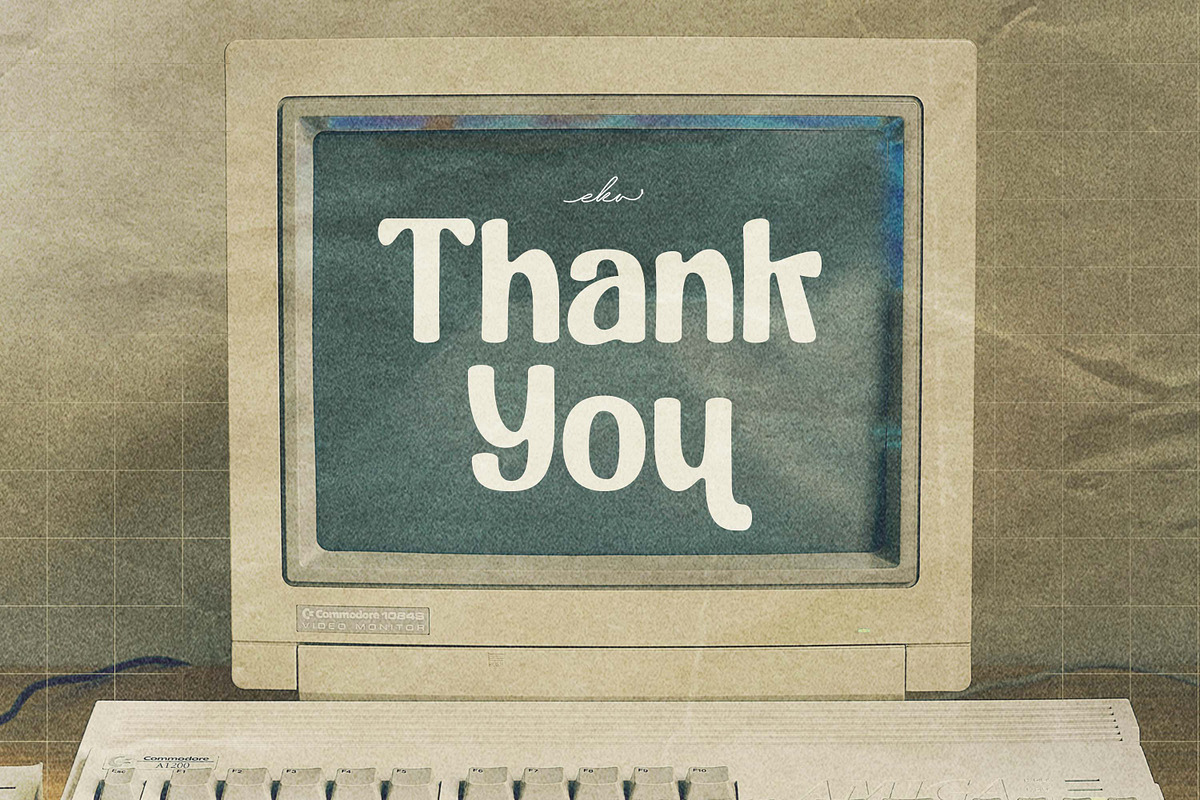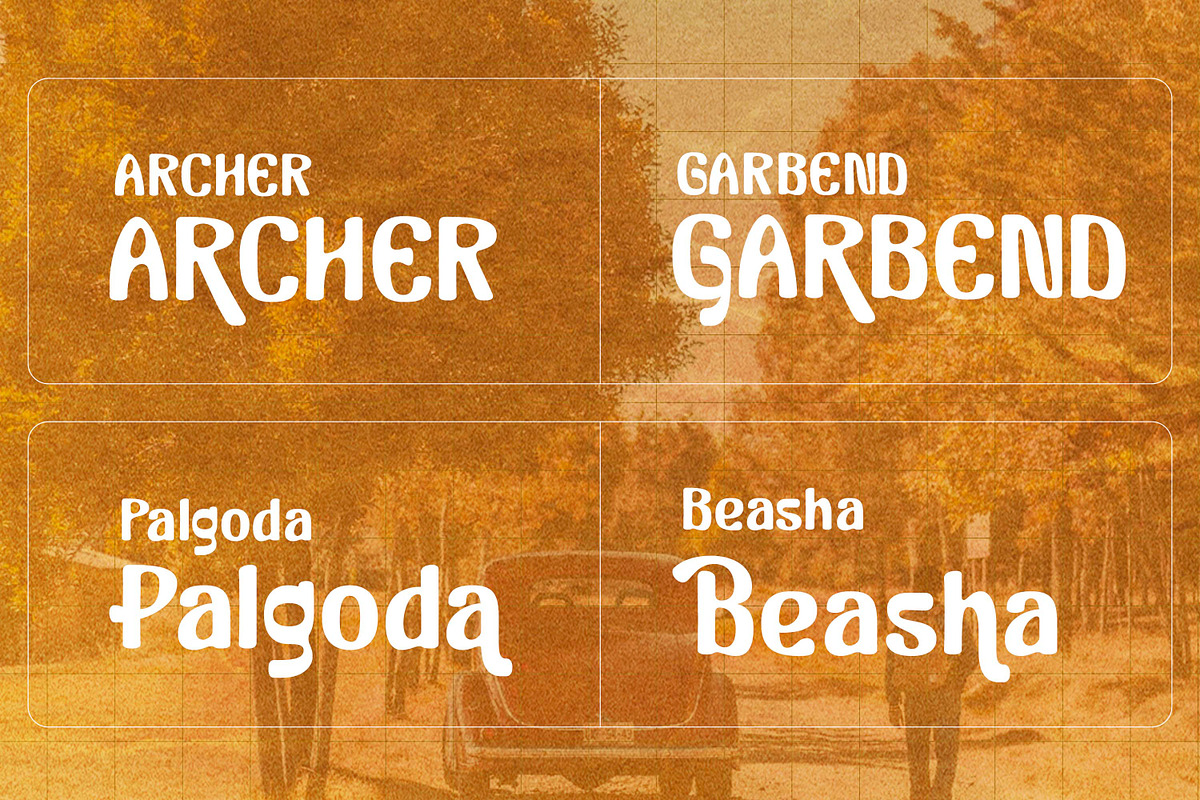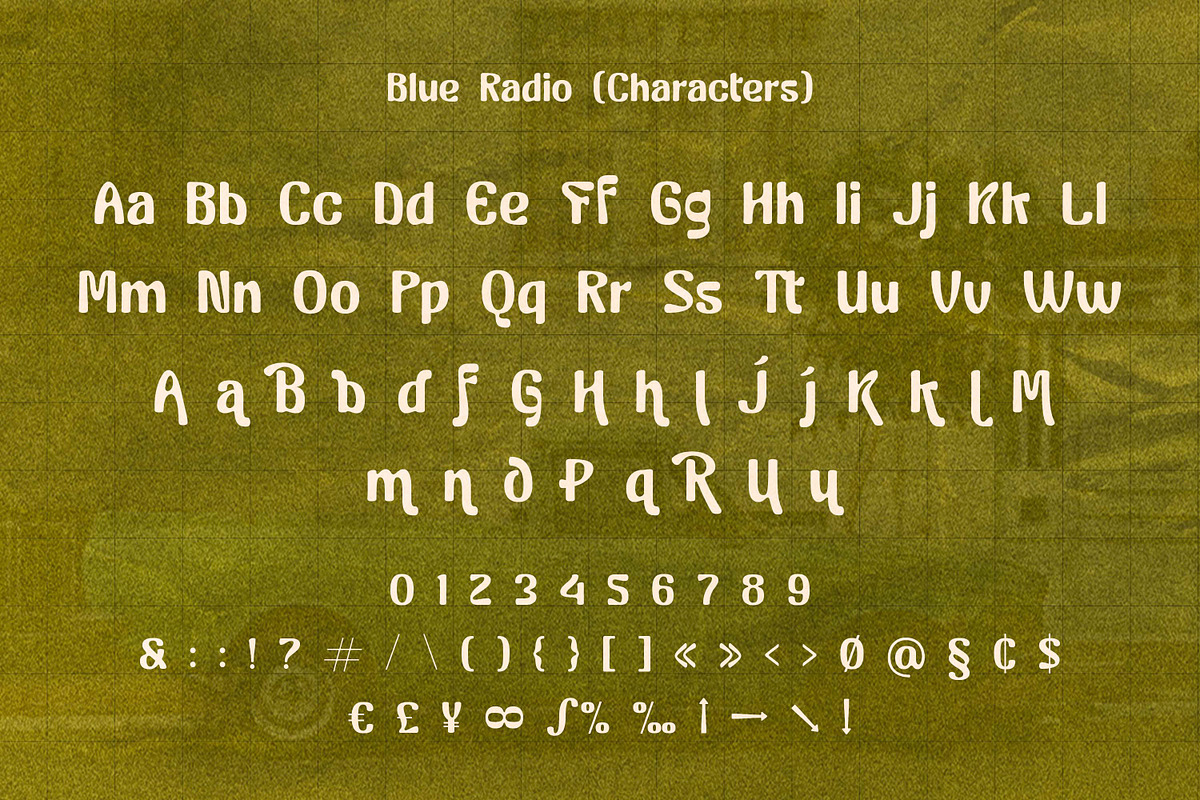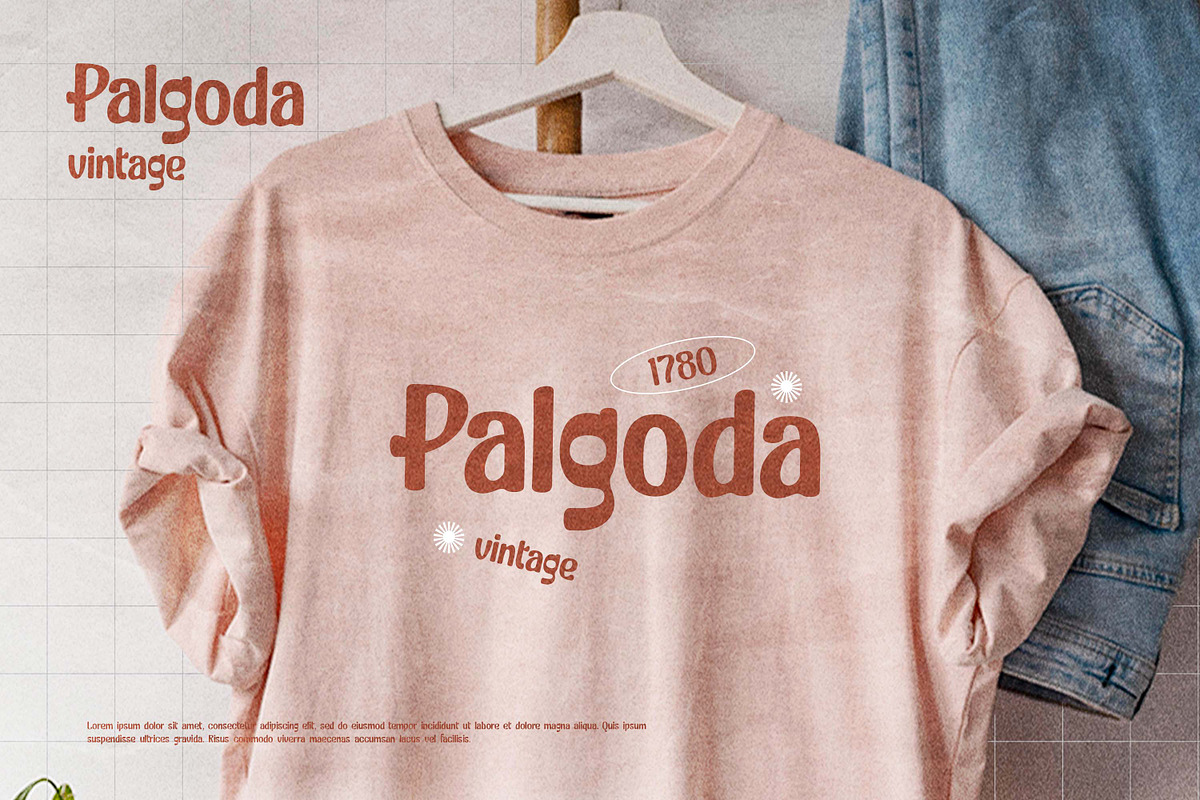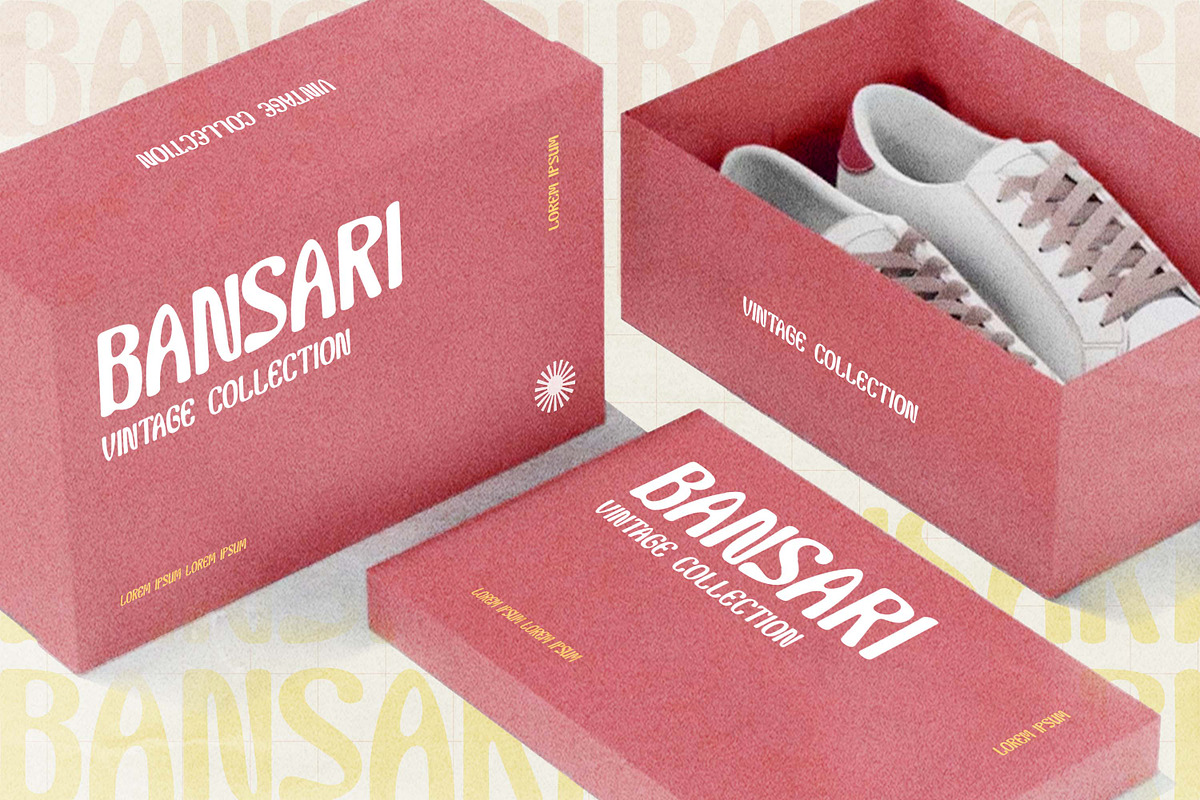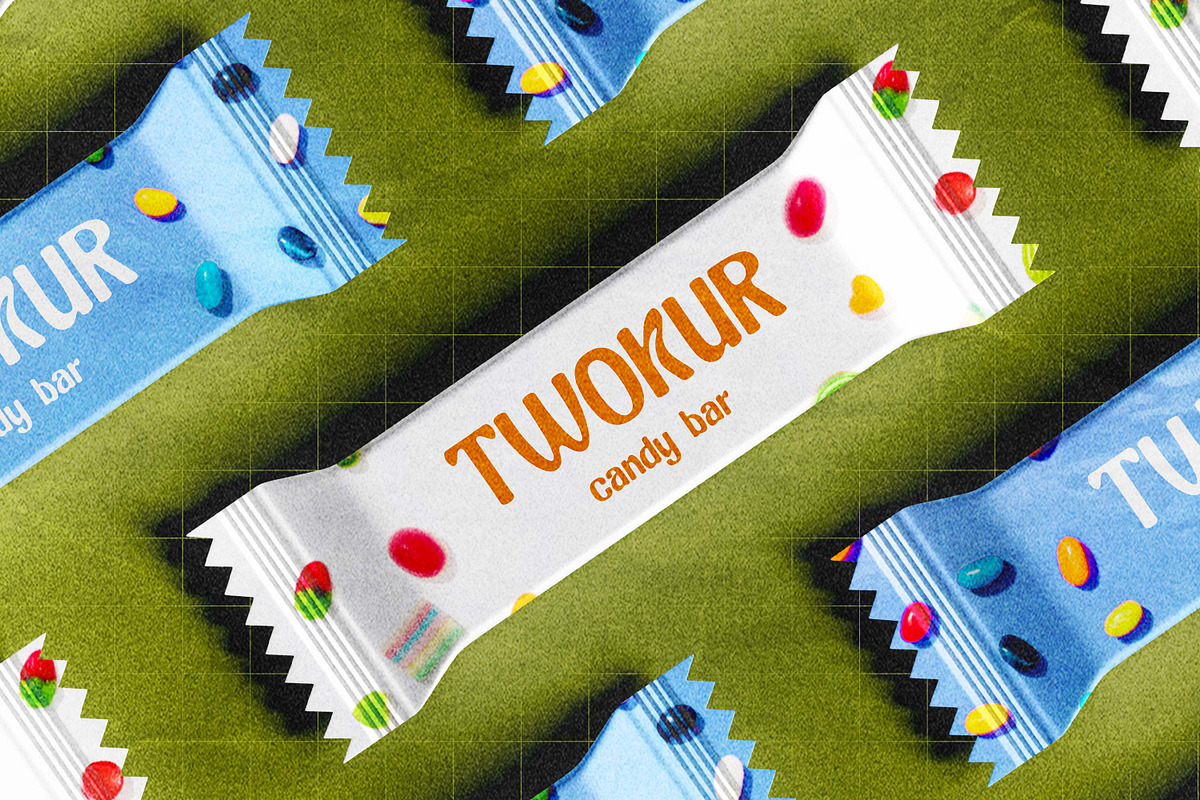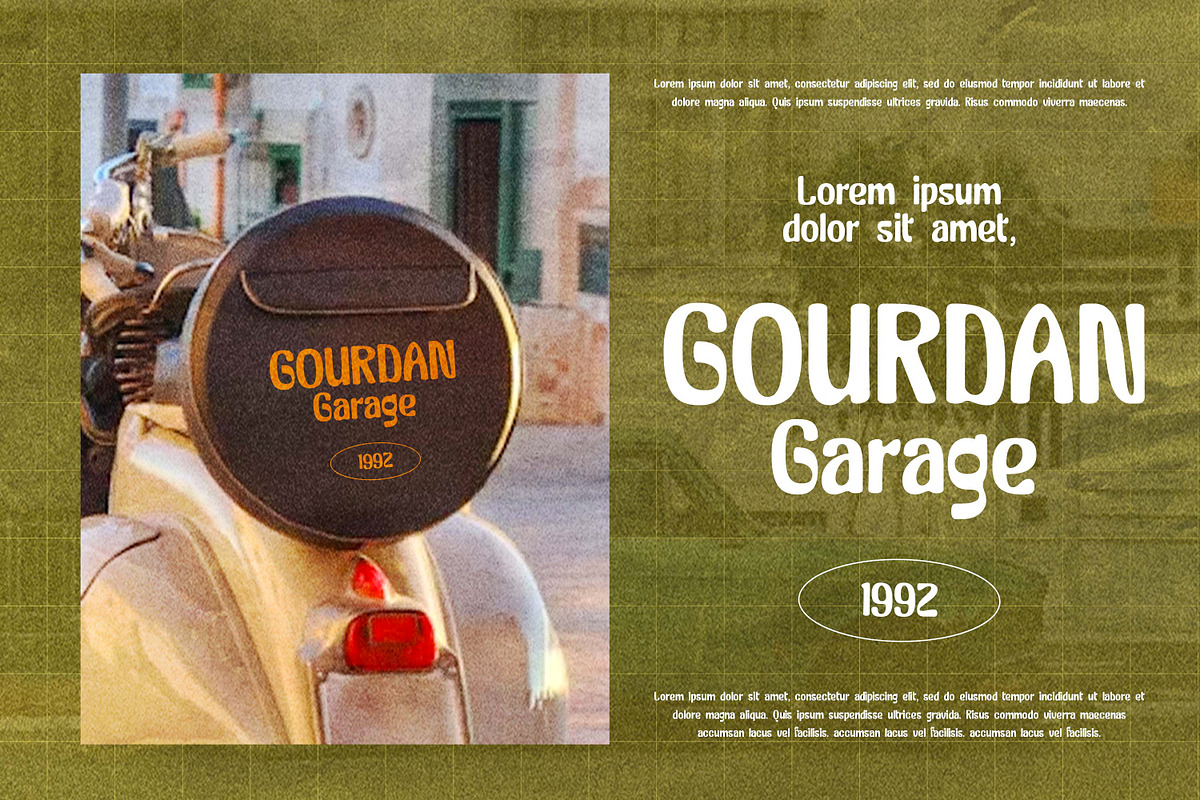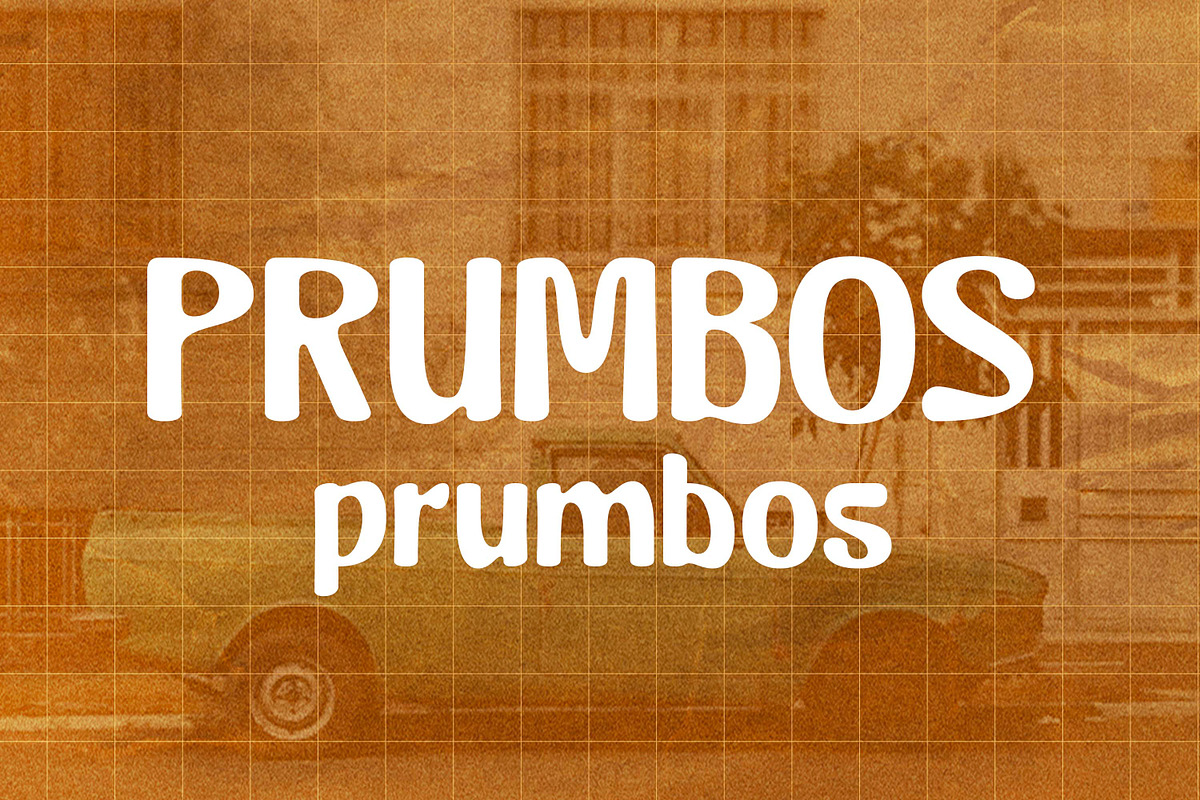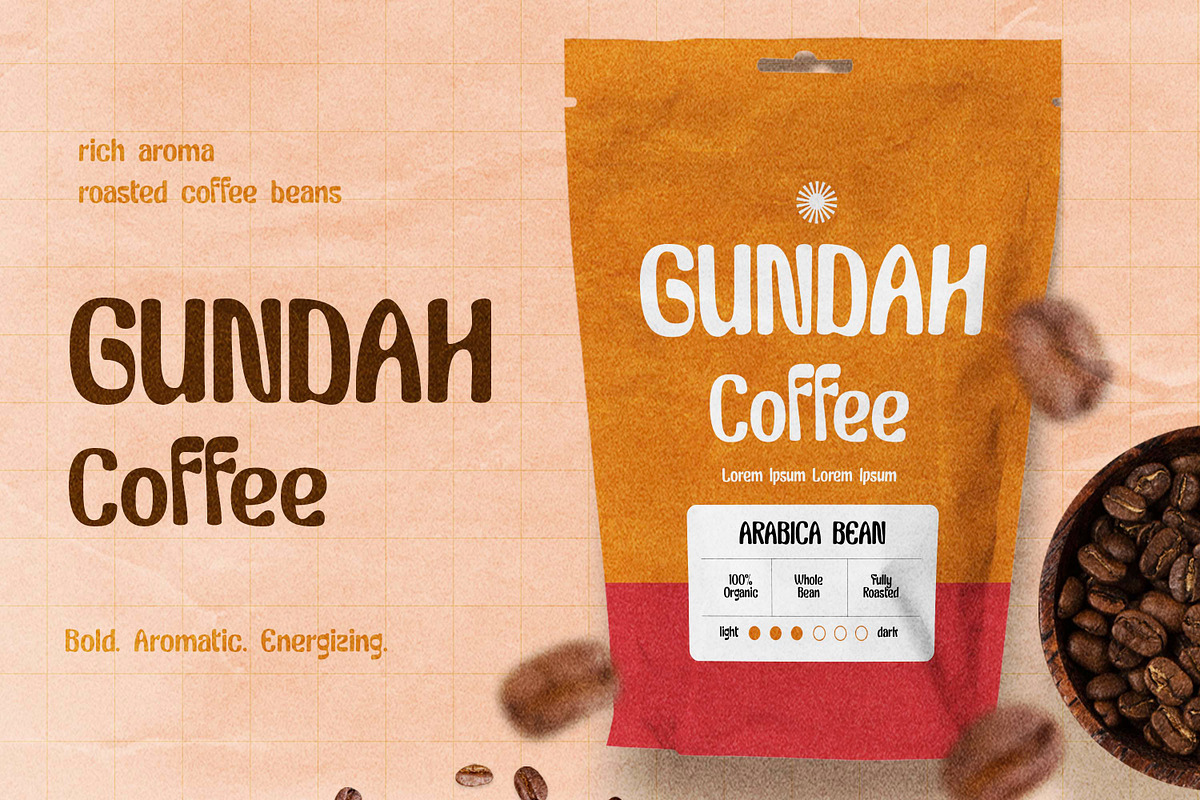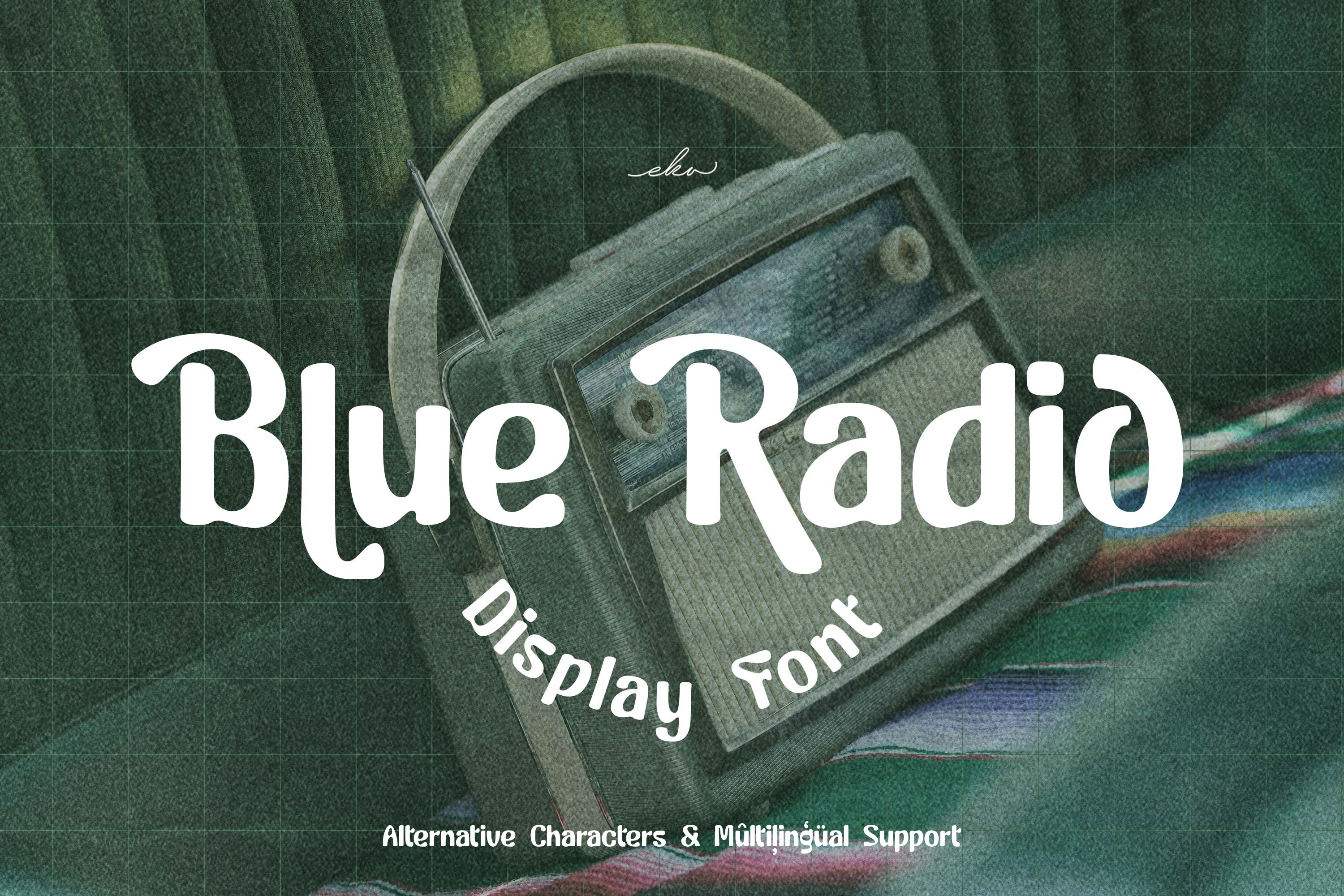
Blue Radio - Vintage Display Font
Introducing Blue Radio – A Bold Vintage Display Font Step into a world of timeless charm with Blue Radio, a bold vintage display font crafted to bring character and nostalgia to your designs. Inspired by classic signage, retro packaging, and old-school advertising, this typeface is perfect for logos, posters, branding, headlines, packaging, and anything that needs a touch of vintage flair. With strong lines and distinctive curves, Blue Radio stands out in both print and digital formats. It’s easy to use, yet packed with personality – the perfect balance for designers who want to make a lasting impression.
- Uppercase & Lowercase Letters
- A selection of stylistic alternates for added flair
Whether you're designing for a retro-themed project or just want to add some classic character to your work, Blue Radio is the perfect choice.